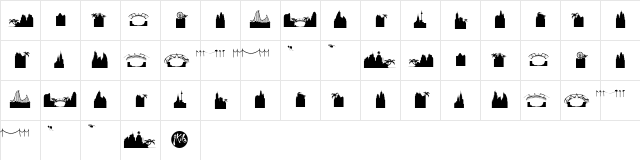
Complete Good Life Regular glyph index. Displaying only characters natively supported by Good Life Regular font.
Good Life is a composed and adaptable typeface that performs quietly and consistently across a wide range of design contexts.